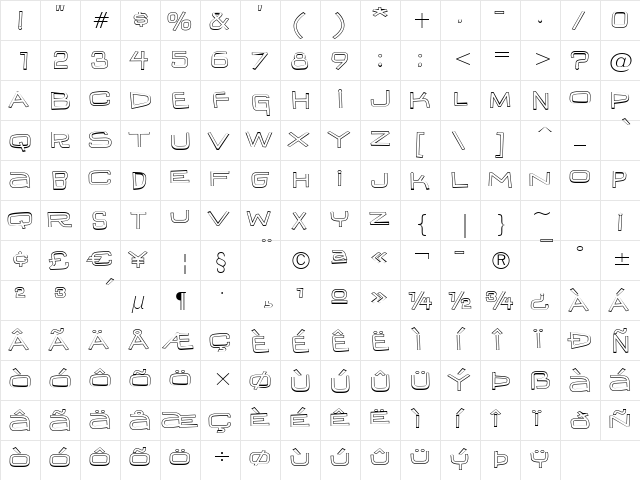
IguanaLover BTN Wide Out Regular
Design Context for IguanaLover BTN Wide Out Typeface
IguanaLover BTN Wide Out takes a measured approach to typography — its balanced proportions and neutral character make it a reliable workhorse for both digital and print work.